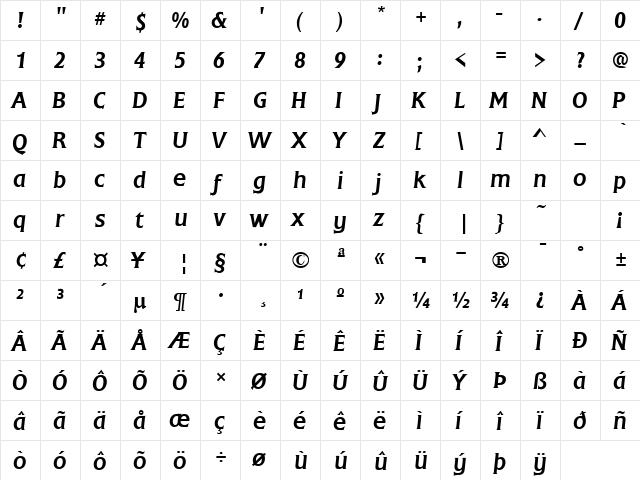
Flatus Bold Italic
Design Context for Flatus Typeface
Flatus is a composed and adaptable typeface that performs quietly and consistently across a wide range of design contexts. The dynamic lean of this cut emphasises speed and emphasis in any layout. The heavy weight commands attention and anchors typographic hierarchies.
Pro Tip: Try Flatus for annotation and caption copy alongside an upright companion — the contrast in angle creates a dynamic but ordered typographic system.